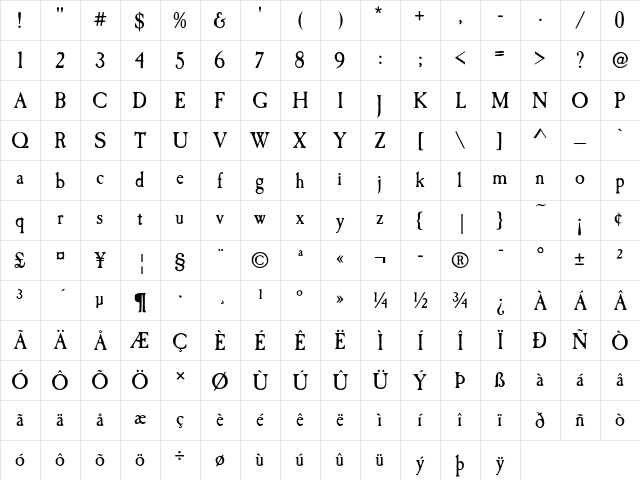
Caslon LT Std Antique Free Font
Caslon LT Std Antique
Style: Antique
Designer: Berne Nadall
Design Context for Caslon LT Std
Caslon LT Std wears its vintage influences proudly, with letterforms that recall mid-century signage, classic packaging, and nostalgia-driven design. Its slender proportions lend an understated elegance to any composition.
Font Pairing: Combine Caslon LT Std with a simple slab or neutral sans - period-accurate companions reinforce the vintage feel without competing for attention.
Pro Tip: Lean into Caslon LT Std's period character by pairing it with aged paper textures, muted colour palettes, and vintage illustration styles.